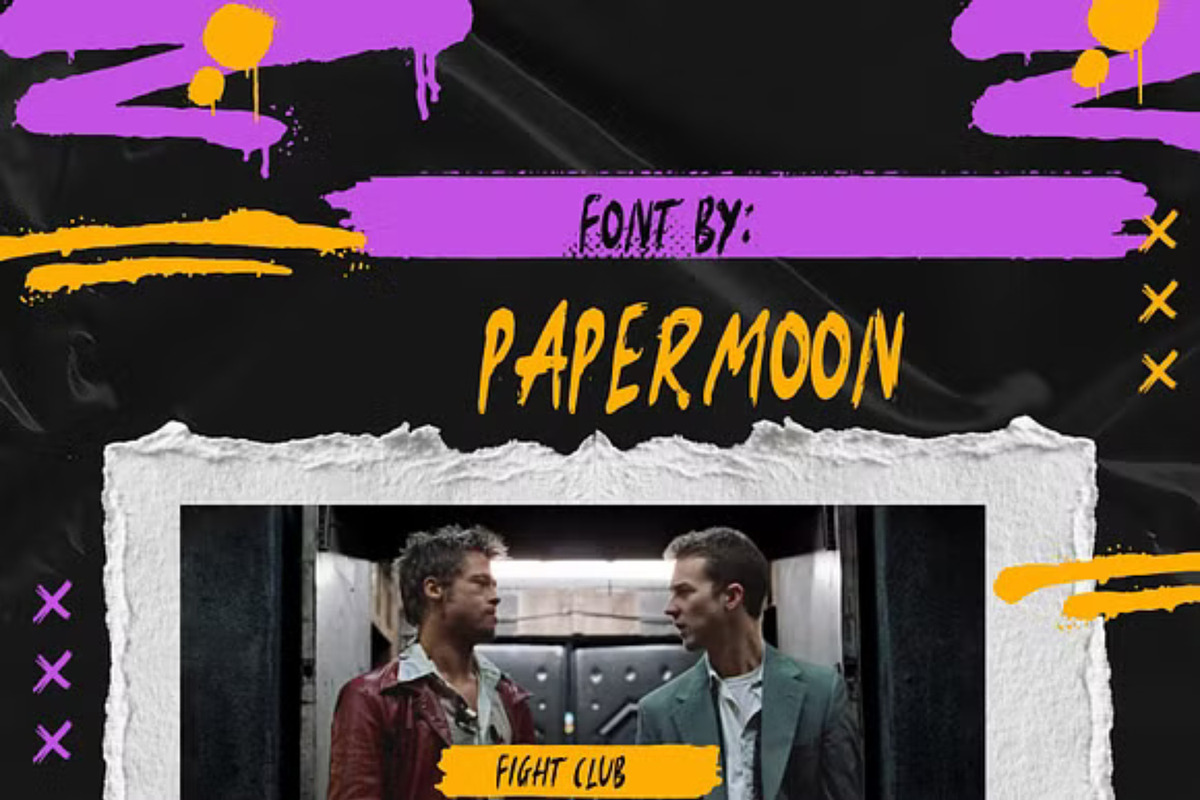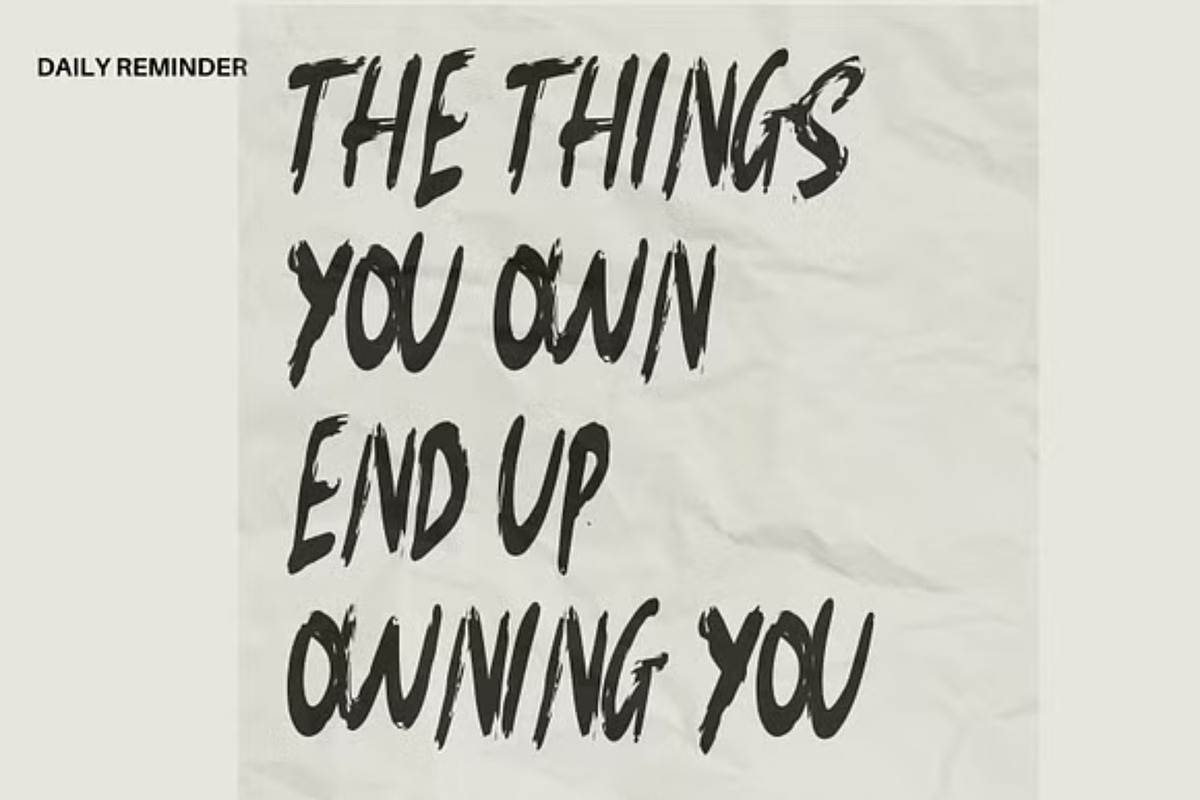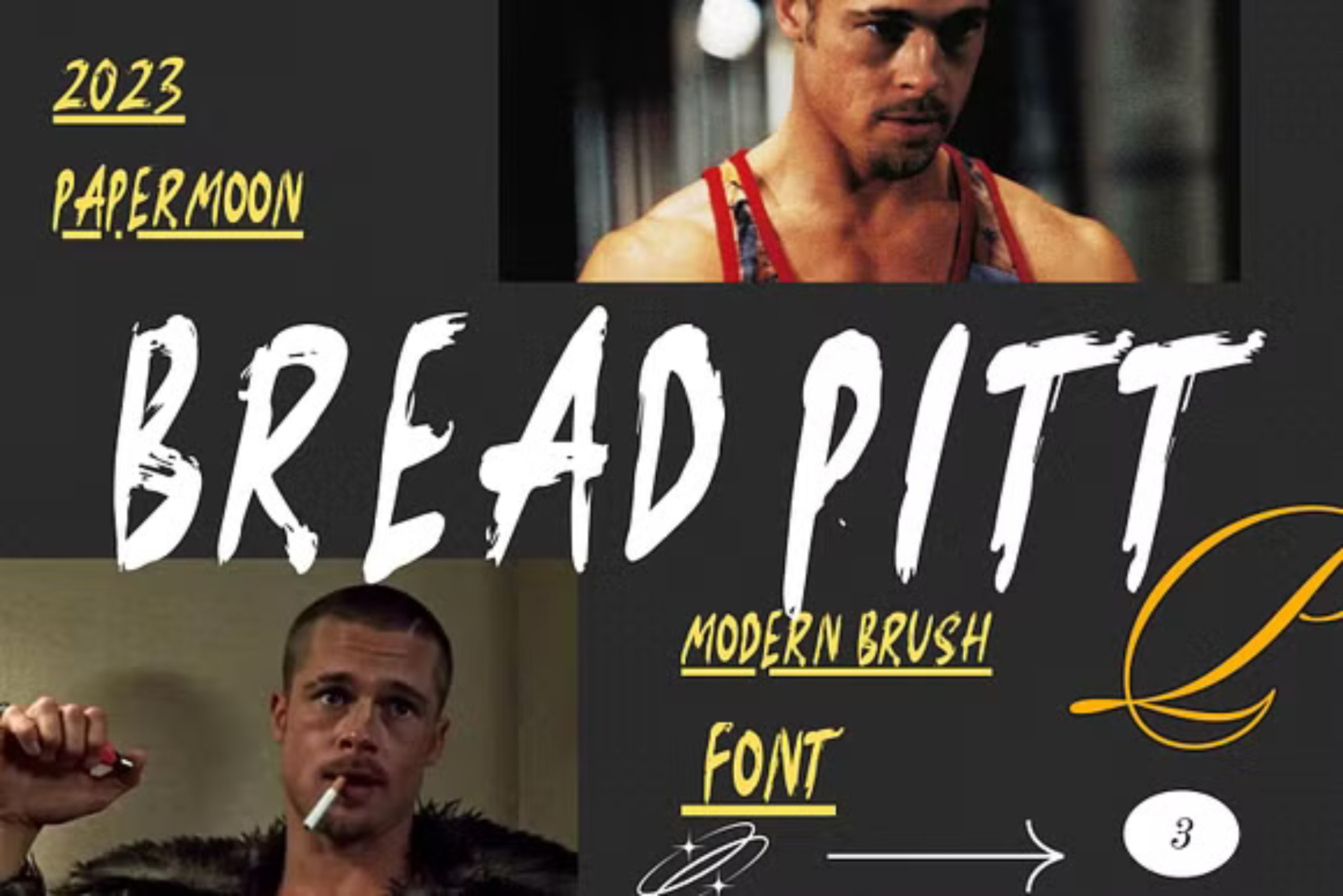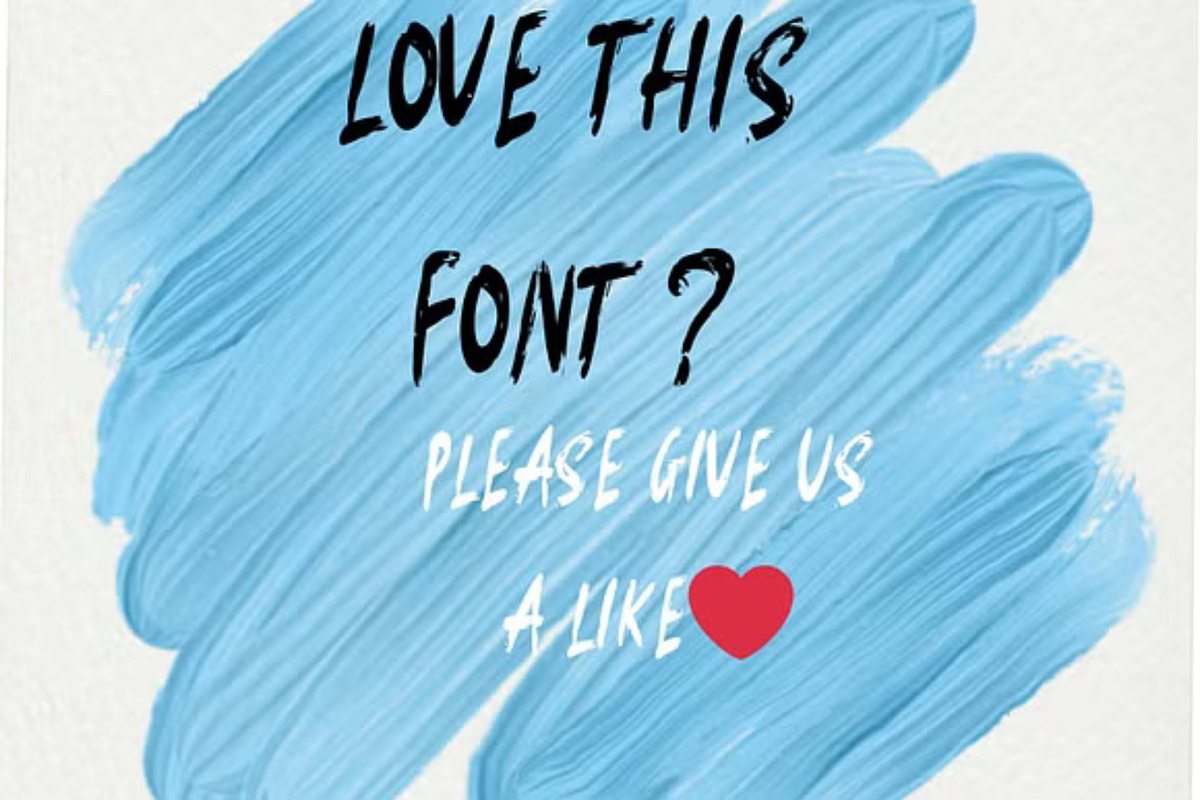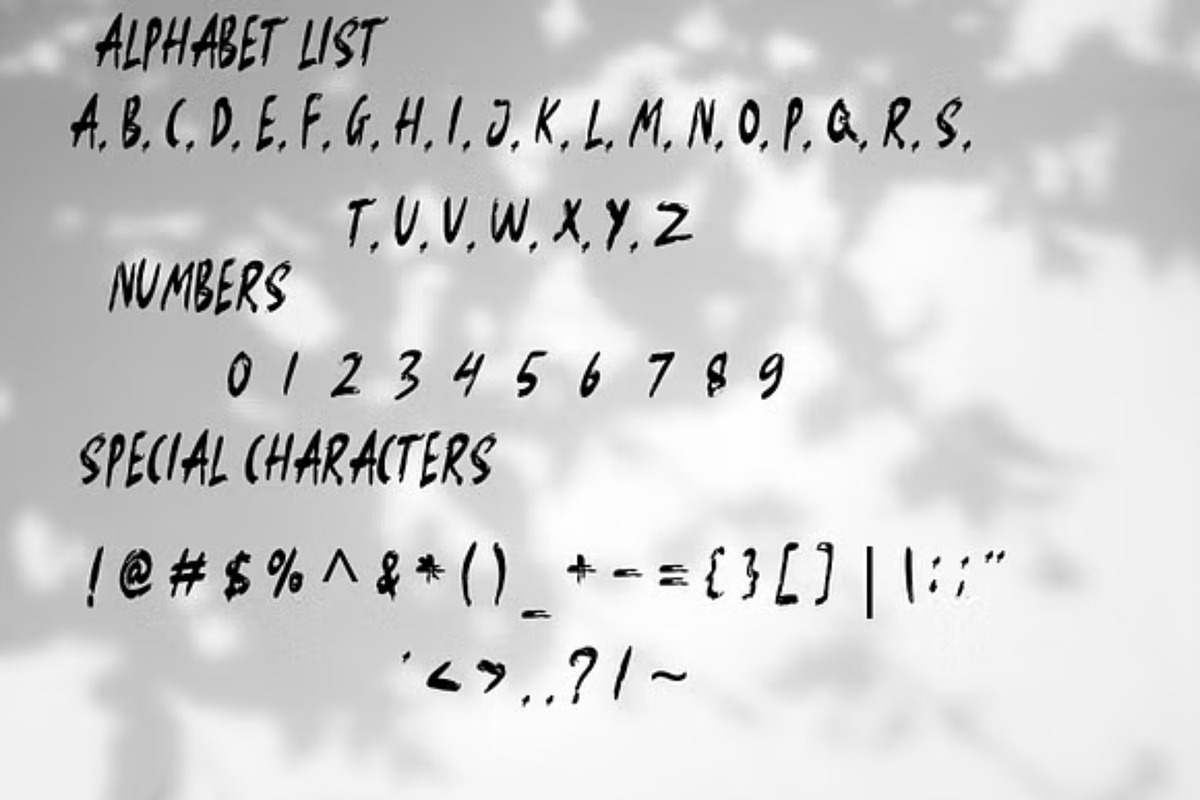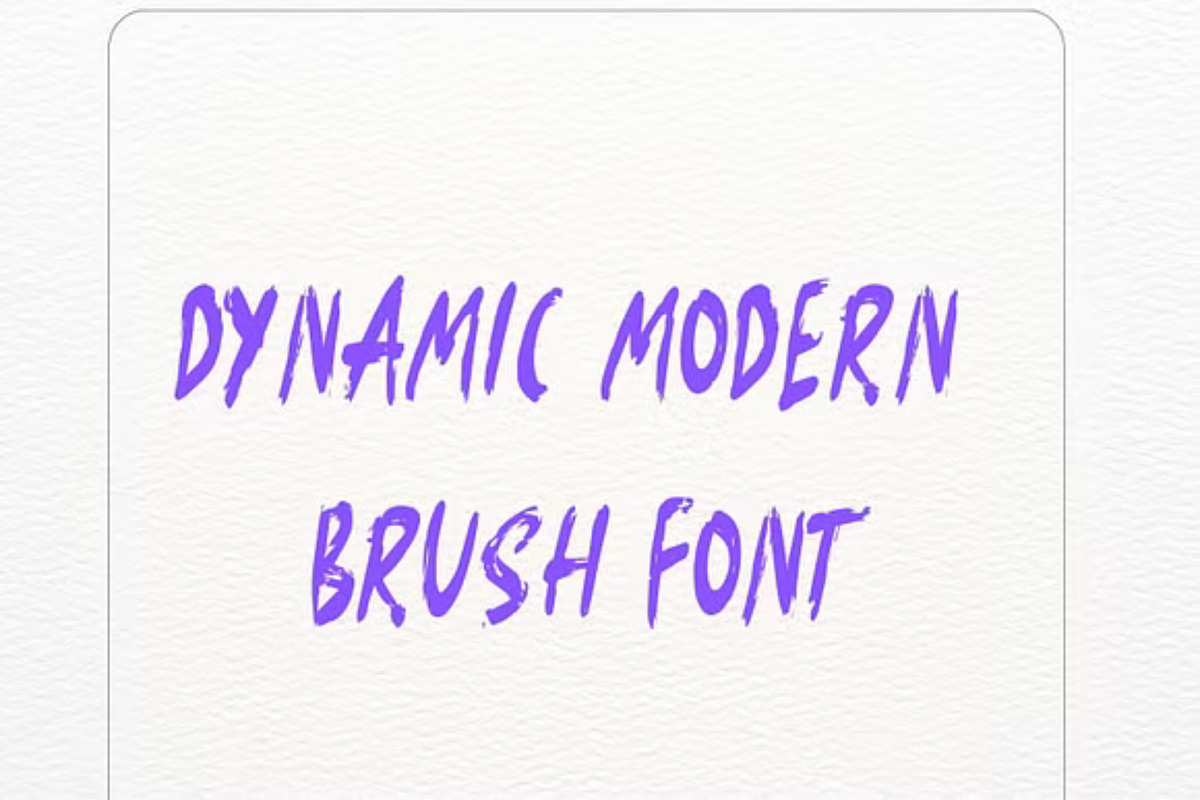
Bread Pitt: Modern Brush Font
Introducing Bread Pitt: A Dynamic Modern Brush Font for Creative Projects
We’re thrilled to present Bread Pitt—a bold and dynamic modern brush font designed to elevate your design projects!
Bread Pitt adds a touch of style and movement to your creative work, making it the perfect choice for a wide range of applications. This font package includes:
Complete character set from A to Z Numerals and punctuations (OpenType Standard) for seamless design integration Accents for multilingual support, ensuring accessibility across diverse languages Stylistic alternates to provide added versatility and creative freedom With Bread Pitt, your design possibilities are truly endless! Elevate your branding, logos, posters, product packaging, and more with this dynamic brush font that’s built to make a statement.